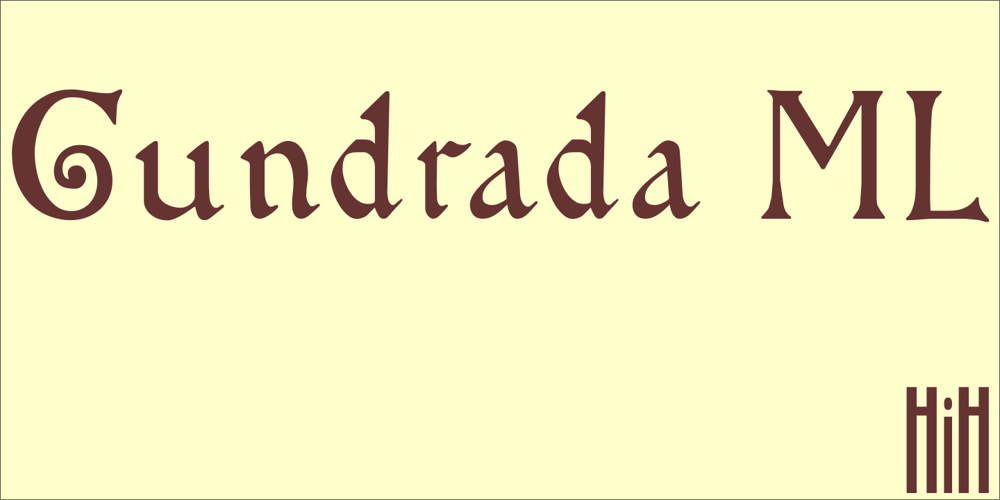
Gundrada ML Font Family was designed by published by HiH. Gundrada ML contains 1 styles and family package options. Gundrada ML was inspired by the lettering on the tomb of Gundrada de Warenne. She was buried at Southover Church at Lewes, Sussex, in the south of England in 1085. The Latin inscription on her tomb, STIRPS GUNDRADA DUCUM, meaning “Gundrada, descendant of the Duke” may have led to the speculation that she was the daughter of William, Duke of Normandy and bastard son of Robert the Devil of Normandy and Arletta, daughter of a tanner in Falaise. In 1066 William defeated Harold at the Battle of Hastings and was crowned William I of England. More commonly known as William the Conquerer, he commissioned a string of forts around the kingdom and charged trusted Norman Barons to control the contentious Anglo-Saxon population. William de Warenne, husband of Gundrada, was one of these Barons. There has also been the suggestion that Gundrada may have been the daughter of William’s wife, Matilda of Flanders, by a previous marriage. According to the Dictionary of National Biography (Oxford University Press, Oxford, England 1921-22), both of these contentions are in dispute. Searching the past of a thousand years ago is like wandering in a heavy fog: facts are only dimly in view. Regardless, I know that I found these letterforms immediately engaging in their simplicity. Unadorned and unsophisticated, they have a direct honesty that rests well in the company of humanistic sans serifs like Franklin Gothic or Gill Sans, appealing to a contemporary sensibility. The lettering on the tomb is in upper case only. Although Gundrada does not sound Norman French to me, her husband certainly and her father probably were Norman French. Nonetheless, the man that carved her tombstone was probably Anglo-Saxon, like most of the people. For that reason, we are quite comfortable with a fairly generic lower case from an Anglo-Saxon document of the time. The time was a time of transition, of contending language influences. This font reflects some of that tension. Features 1. Multi-Lingual Font with 389 glyphs and 698 Kerning Pairs. 2. OpenType GSUB layout features: onum, dlig, liga, salt & hist. 3. Tabular Figures and Alternate Old-Style Figures. 4. Alternate Ruled Caps (line above and below, matching to brackets). 5. Central Europe, Western Europe, Turkish and Baltic Code Pages. 6. Additional accents for Cornish and Old Gaelic. 7. Stylistic alternates A, E, y and #. 8. Ligatures ST, Th, fi and fl. 9. Historic alternate longs. The zip package includes two versions of the font at no extra charge. There is an OTF version which is in Open PS (Post Script Type 1) format and a TTF version which is in Open TT (True Type)format. Use whichever works best for your applications.